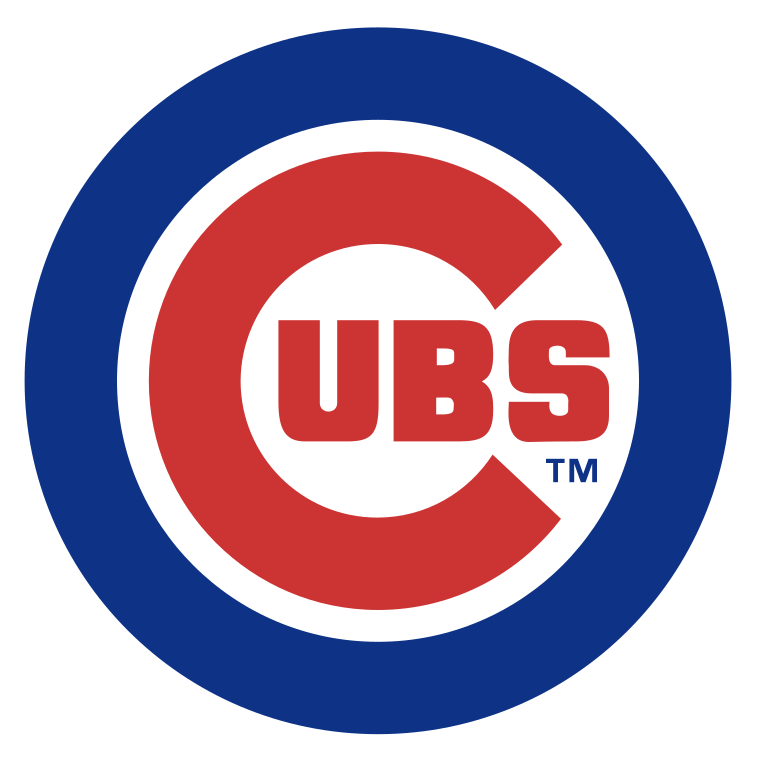
Chicago Cubs Font
Fonts in UseThe Chicago Cubs are a professional baseball team based in Chicago, Illinois. They compete in Major League Baseball (MLB) and have a loyal fanbase, known for their iconic ballpark, Wrigley Field, and a rich history that includes winning multiple World Series championships.
The current logo of the Chicago Cubs, in use since 1979, showcases a bold blue circle with a prominent red "C" inside, featuring the letters "UBS" within the initial "C".
For fonts resembling the "UBS" text, you can explore Philosophy, a free font by Weknow or Neographik from Monotype. Geometric sans serifs like Montserrat Bold, Bunya Bold, and Lionel Classic can be used to replicate the letter "C".